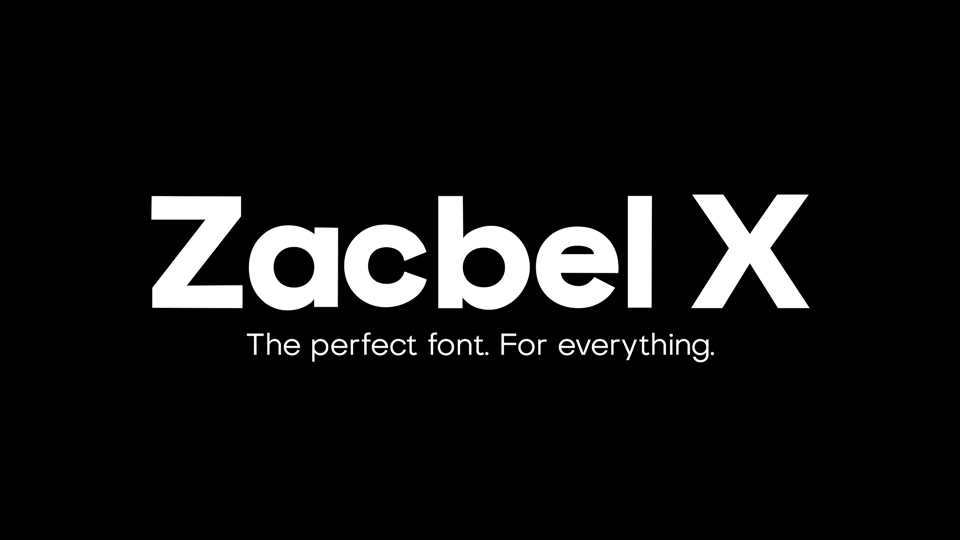
Download Zacbel X font, a new, modern sans serif typeface that fits perfectly in any environment. Zacbel X is perfectly suited for graphic design and any display use.
Designer: Isaac Chan